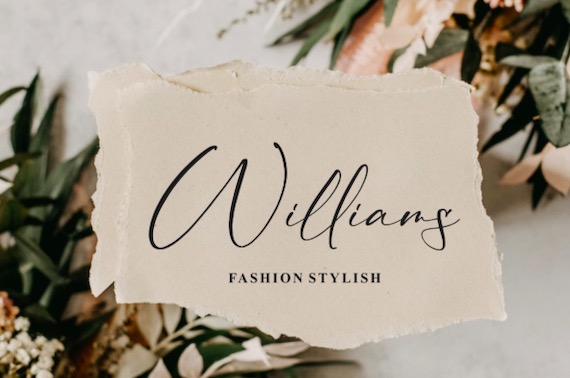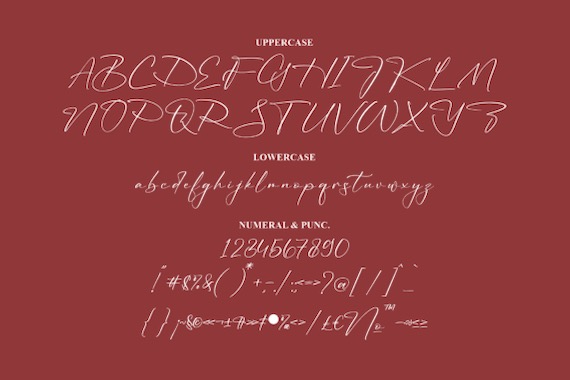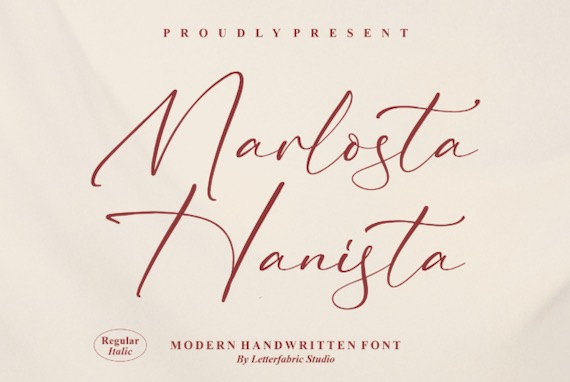
Marlosta Hanistais a dainty and stylish handwritten script font that was created and shared by Letterfabric. This script font is suitable for any designs, for example, logos, branding projects, labels, photography, watermark, special events, and all your other lovely projects that need a beautiful script taste. This script font is PUA encoded which means you can access all of the glyphs and swashes with ease!
Marlosta Hanista Handwritten Script Font